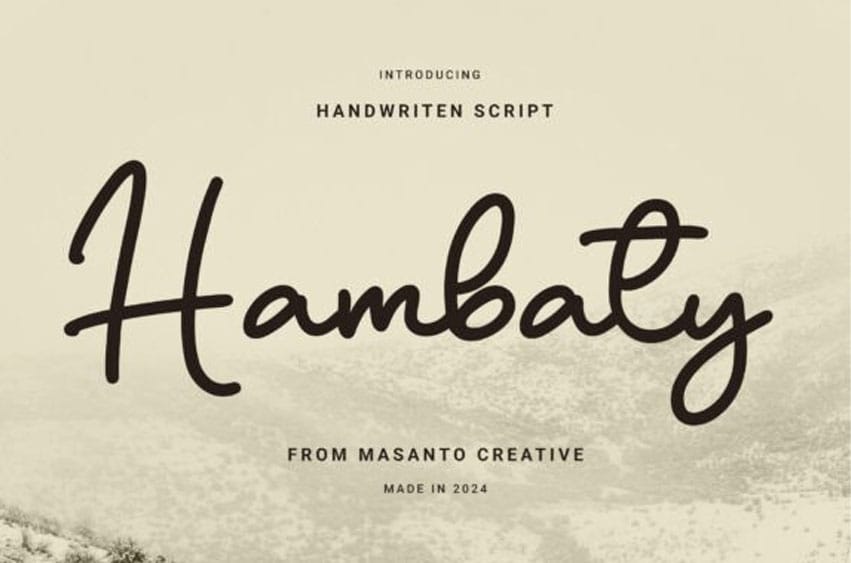
Hambaty Script Font, with its handwritten and script style, makes this font look elegant, natural, and perfect for any awesome projects that require a handwriting style.